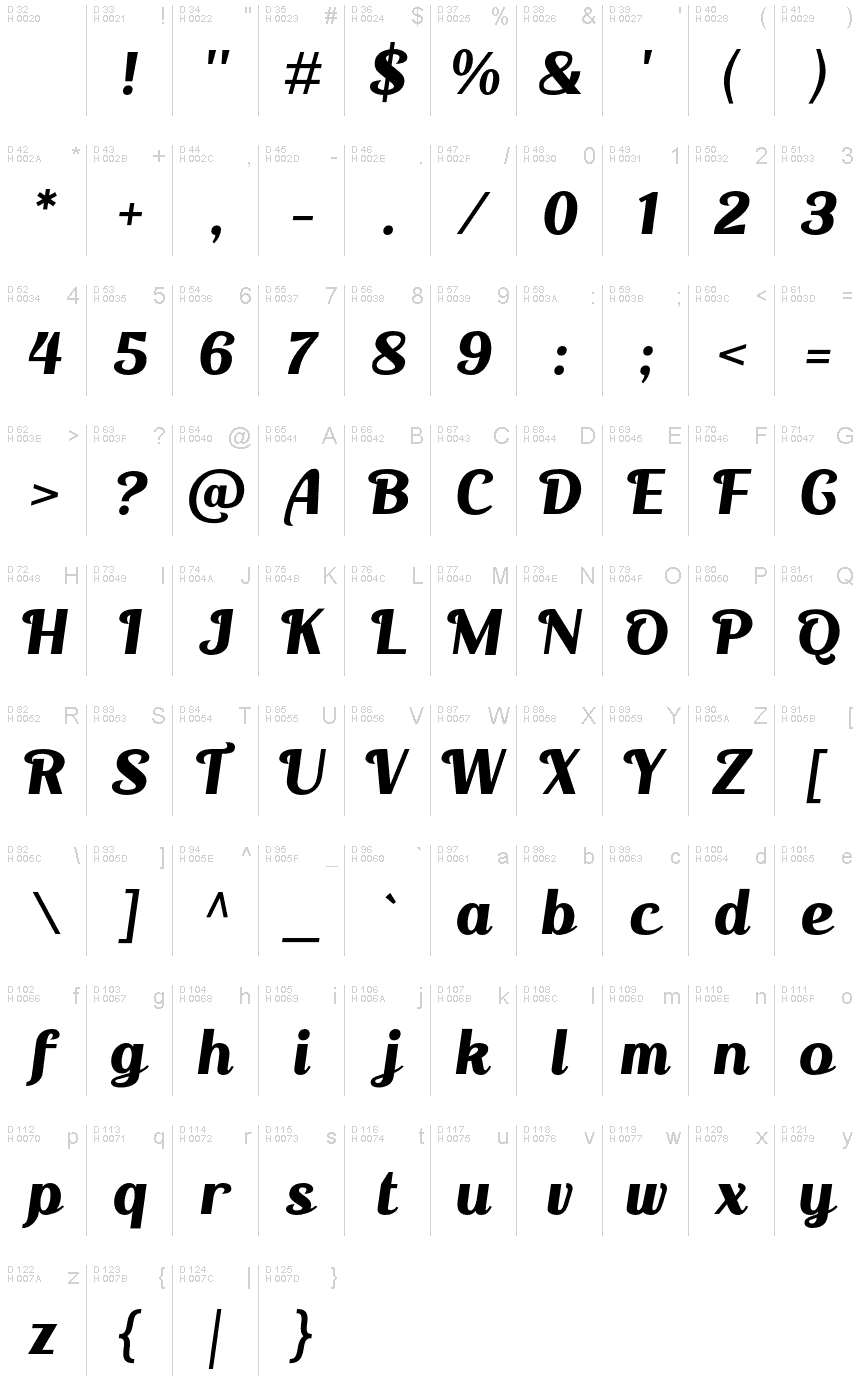
ChapuChaps-Regular
Chapu Chaps is a bold calligraphy font designed by Faqih Fawaji. With its thick and expressive strokes, this font is perfect for projects that require an elegant and sophisticated touch. Use Chapu Chaps to add a unique flair to your wedding invitations, business cards, or branding materials. Its bold weight makes it ideal for headlines and titles that need to stand out. Whether you're creating a modern logo or adding a vintage twist to your designs, Chapu Chaps is the perfect choice for any project that demands attention. Make your words come alive with this beautiful typeface today!